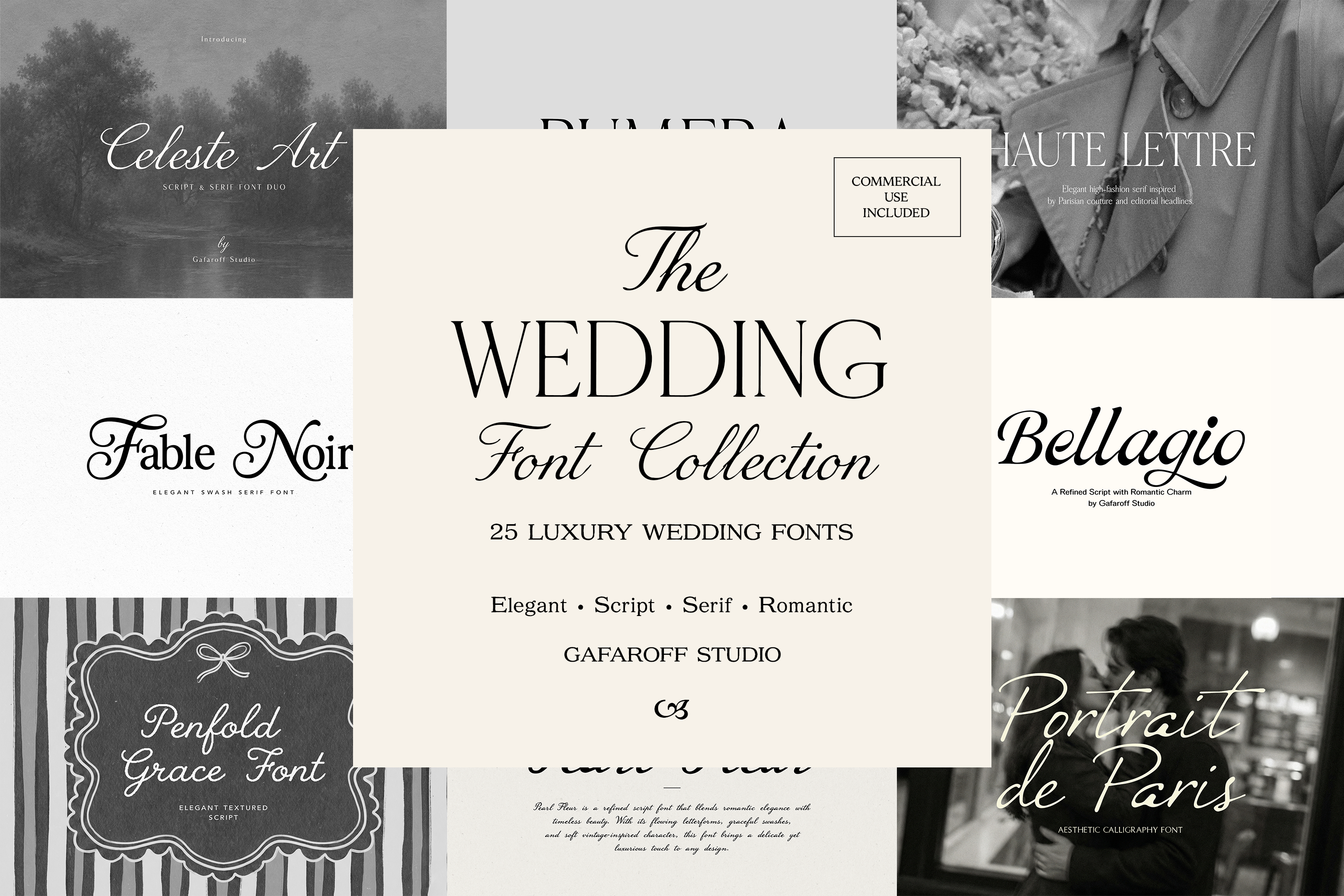
Wedding Font Collection
Create refined wedding stationery and sophisticated brand identities with a curated collection of 25 original serif and script fonts.
Inspired by luxury weddings, fine stationery, editorial typography, and timeless romance, this versatile collection brings together elegant serifs, graceful scripts, decorative display fonts, and coordinated font duos.
Mix and match the typefaces to create beautiful typographic combinations for wedding invitations, save-the-date cards, bridal branding, logos, packaging, editorial layouts, websites, and social media.
Every font in this collection is an original GafaroffStudio design, carefully selected to complement the others and help you create a consistent, polished visual identity.
25 original premium fonts
Elegant serif fonts
Romantic script fonts
Wedding invitations and stationery
Save-the-date cards
Bridal and event branding
Luxury logos and visual identities
Editorial and magazine-inspired layouts
Beauty and fashion branding
Packaging and labels
Websites and social media
Monograms, headlines, and elegant quotes
Bellagio
Pearl Fleur
Penfold Grace
Marceline
Portrait de Paris
Dreamy Antiqua Serif
Dreamy Antiqua Script
Noir Atelier
Fable Noir
Haute Lettre
Arabesque
Celeste Art Serif
Celeste Art Script
Amelia Henry Serif
Amelia Henry Script
Vintage Whisper
Wisteria Curls
South Coast
Gaiety
Lacuna
Gaian
Rumera
Chérie Ligne
Avelisse Serif
Mabel Joy